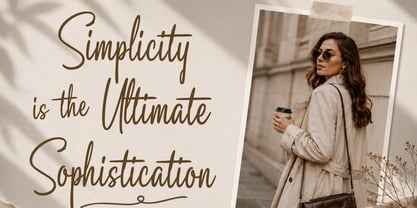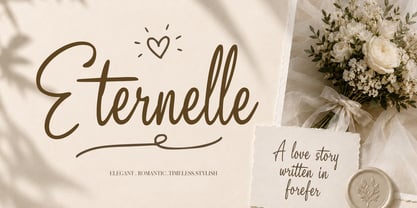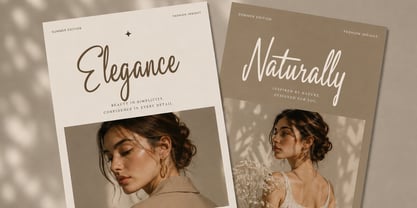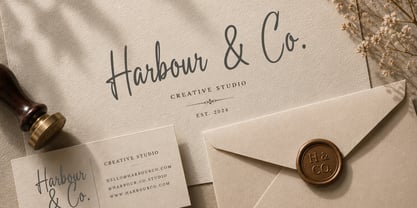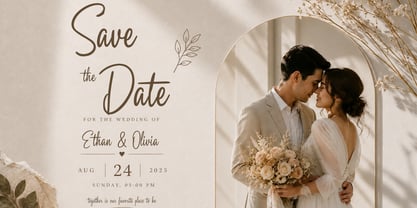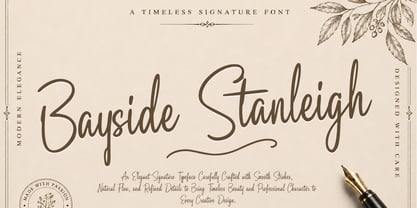
Bayside Stanleigh
por Cocodesign
La familia tipográfica Bayside Stanleigh fue diseñada por Muhammad Zaini y publicada por Cocodesign. Bayside Stanleigh contiene 2 estilos y opciones de paquete familiar. Más información sobre esta familia
Bayside Stanleigh is an elegant signature script font that beautifully captures the essence of natural handwriting through its smooth curves, graceful strokes, and refined details. With a clean and timeless aesthetic, this typeface offers a sophisticated appearance while ensuring excellent readability. Its flowing letterforms and balanced characters make it a versatile choice for a variety of creative projects, including luxury branding and modern editorial design. Whether utilized as a bold headline or a stylish signature, Bayside Stanleigh infuses warmth, authenticity, and premium appeal into every composition. Ideal for crafting memorable visual identities, this font excels in both print and digital media, making it a perfect addition to your design toolkit.
Diseñadores: Muhammad Zaini
Fundición: Cocodesign